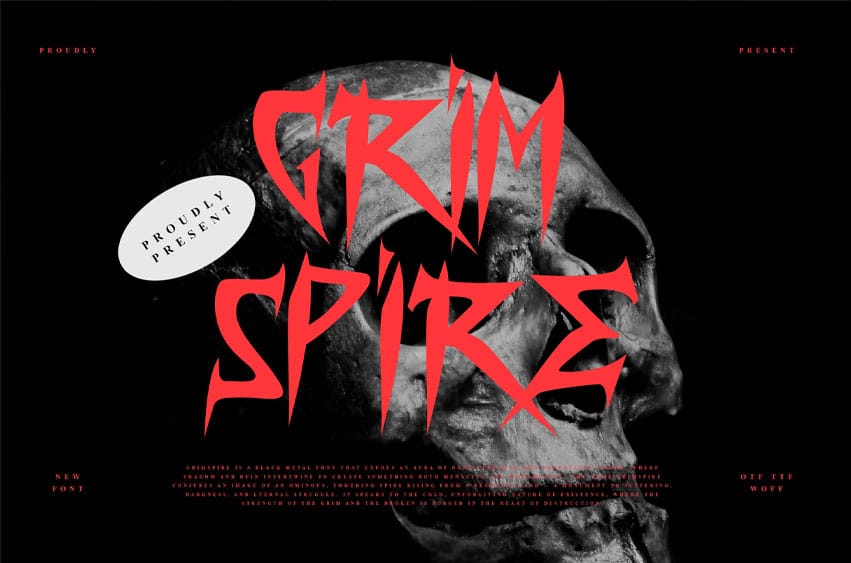
Grimspire Deathmetal Font is a black metal font that exudes an aura of dark strength and relentless power, where shadow and ruin intertwine to create something both menacing and monumental.
The name Grimspire conjures an image of an ominous, towering spire rising from a desolate land — a monument to suffering, darkness, and eternal struggle. It speaks to the cold, unforgiving nature of existence, where the strength of the grim and the broken is forged in the heart of destruction.